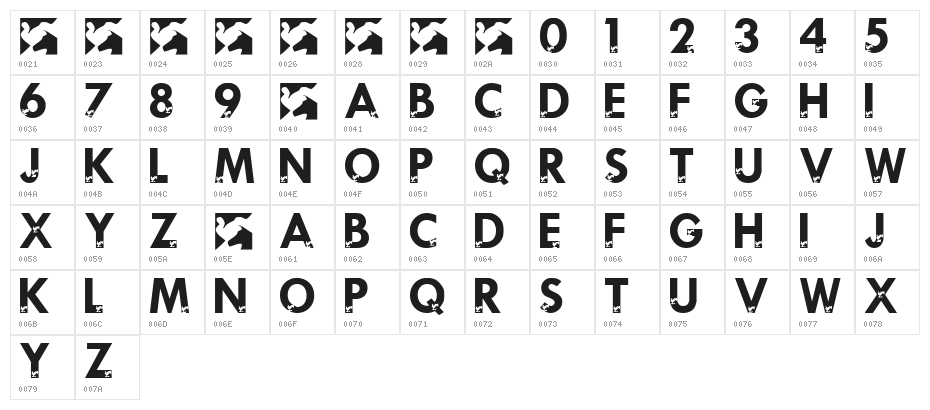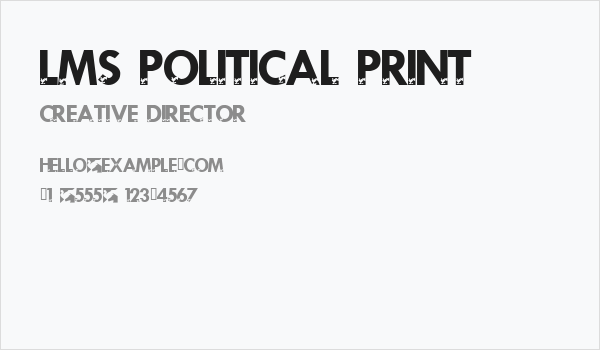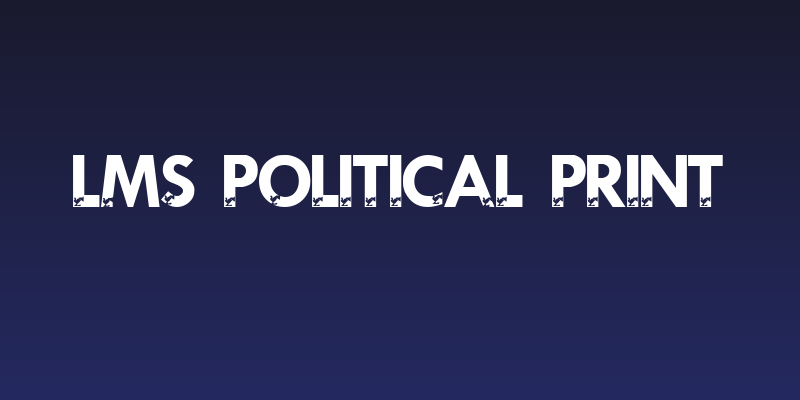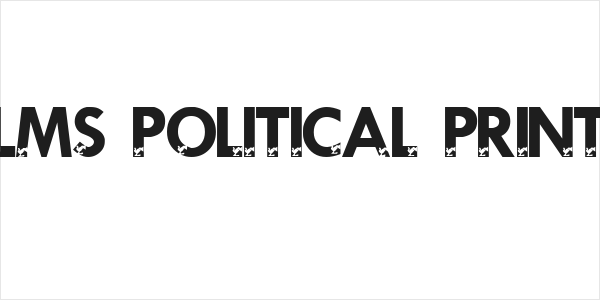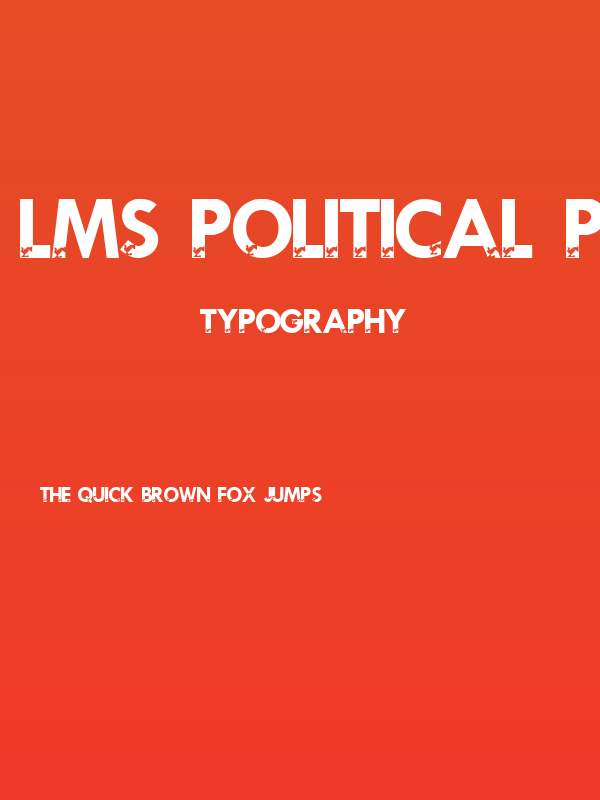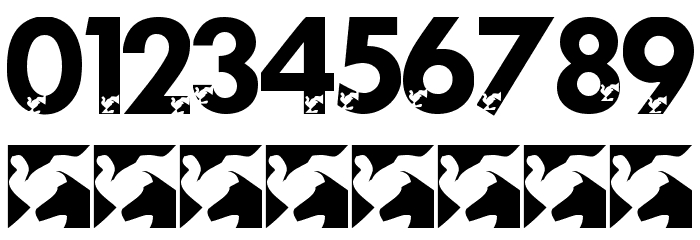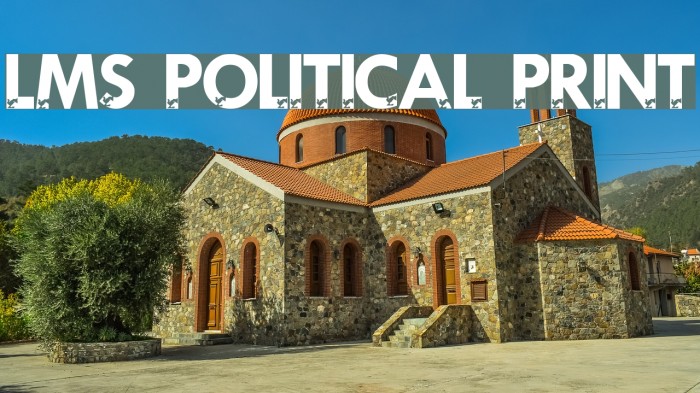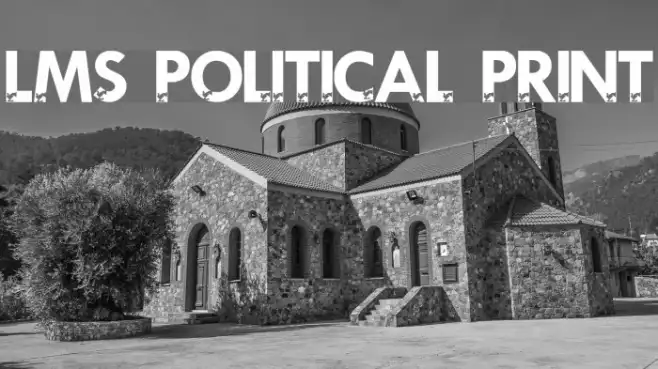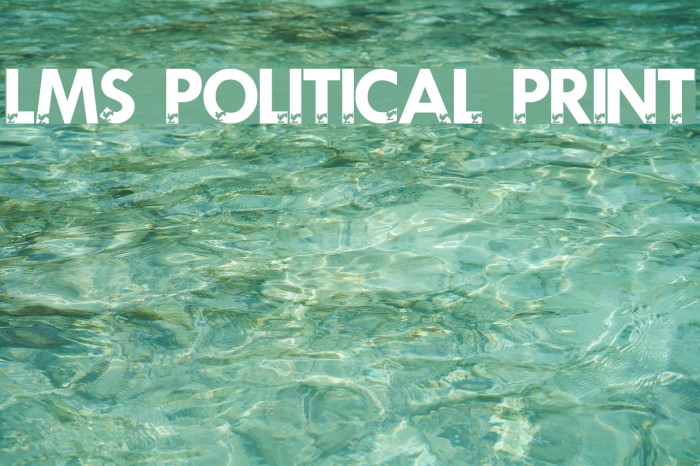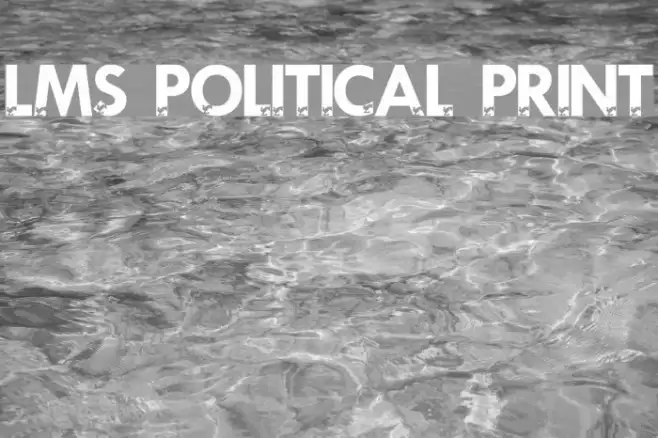
LMS Political Print Font
LMS Political Print Description
This font features a bold and impactful design with a unique distressed texture that gives it a rugged, vintage feel. The uppercase letters are strong and commanding, with a consistent weight throughout. The numbers and special characters share the same boldness, ensuring a cohesive look across all elements. The distressed texture adds character and depth, making it suitable for projects that require a touch of nostalgia or a gritty aesthetic. The font's style is both decorative and functional, making it versatile for various design needs.
| Overall Style | Vintage, Decorative |
| Proposed Projects | Ideal for posters, political campaigns, vintage-themed designs, and branding that requires a strong, impactful presence. |